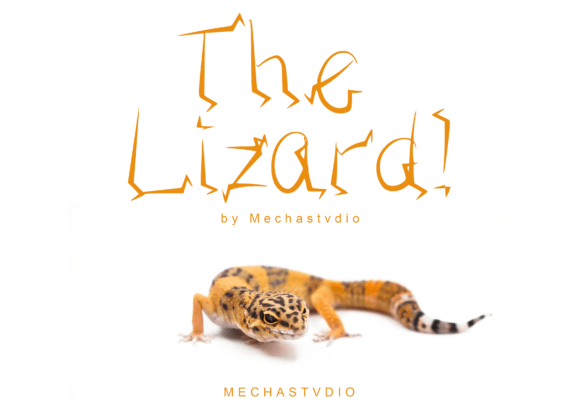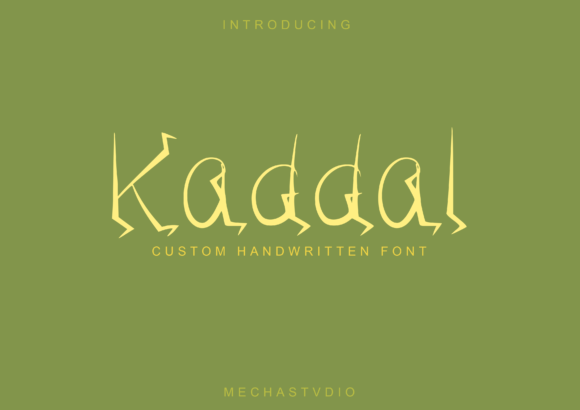
Introduction to Kaddal Font
Kaddal is a simple, wild, and clean display font perfect for logos, branding, stationery, wedding designs, social media posts, and more.
Key Features of Kaddal Font
Why Choose Kaddal Font?
Kaddal Font offers exceptional quality and versatility, making it a valuable addition to your design toolkit. Whether you’re creating for personal projects or commercial use, Kaddal Font delivers professional results.